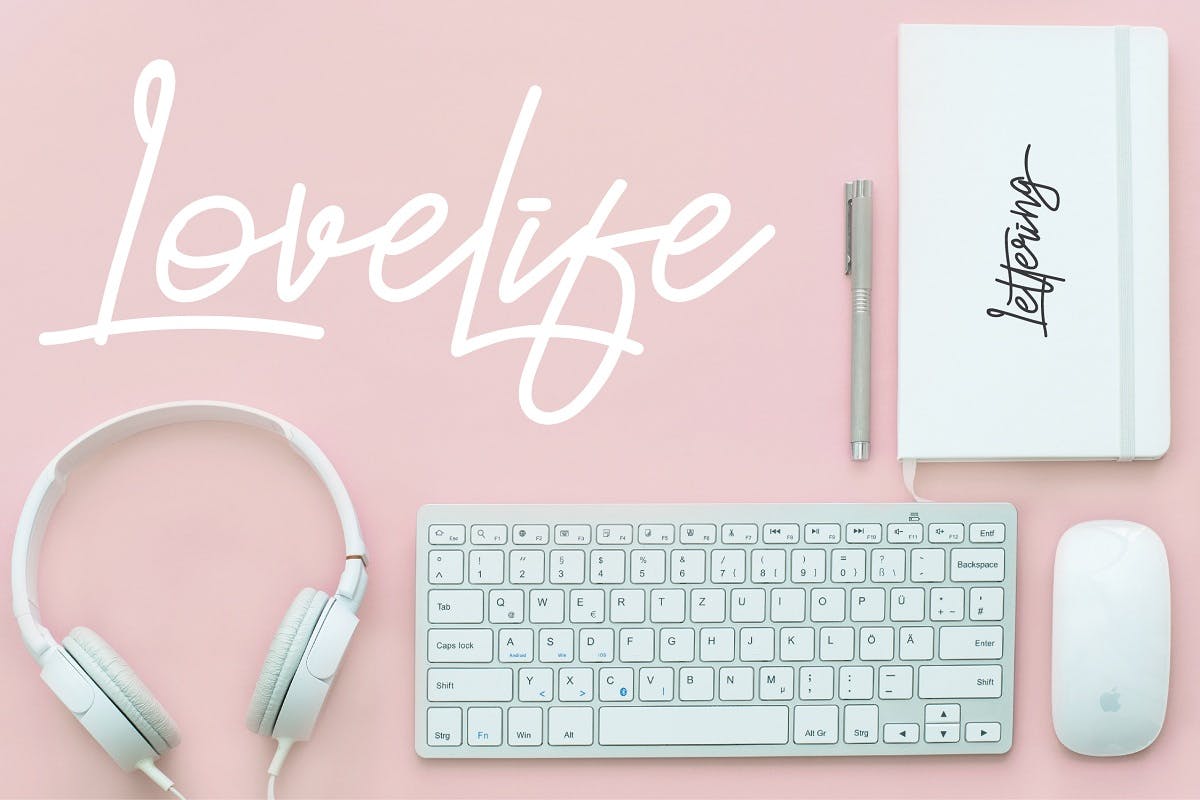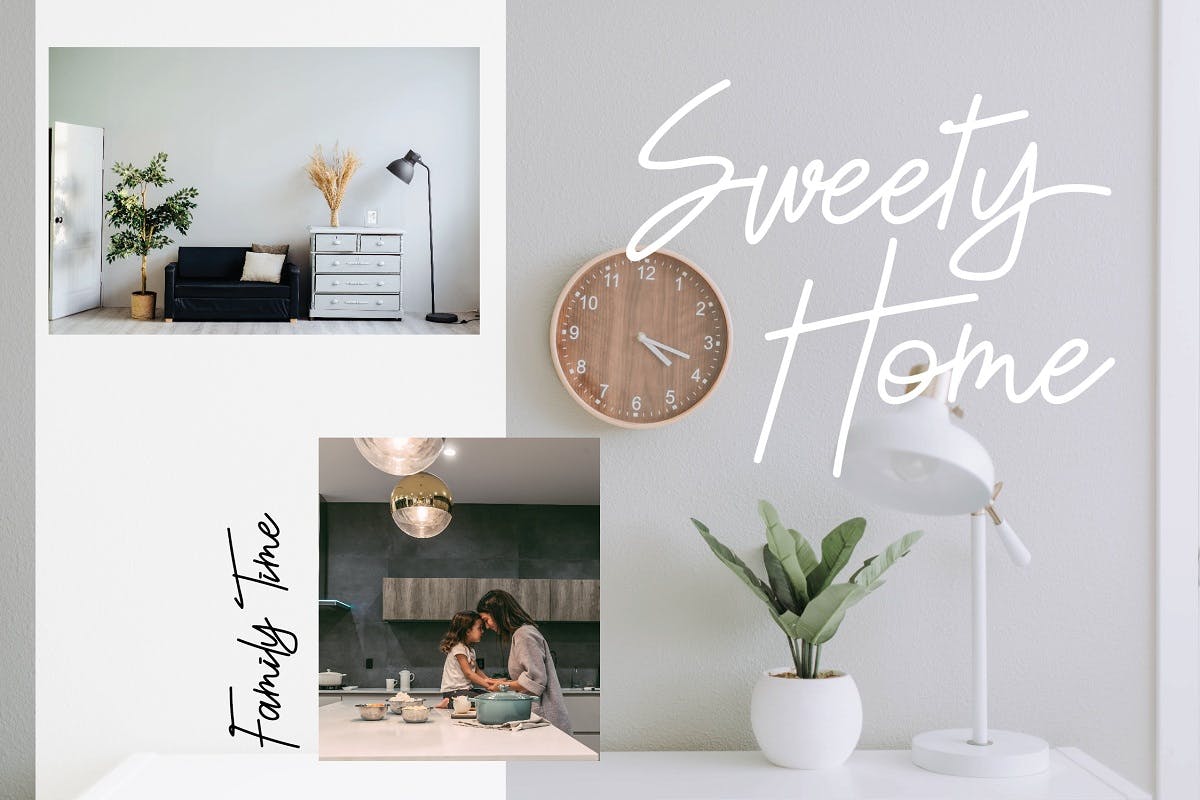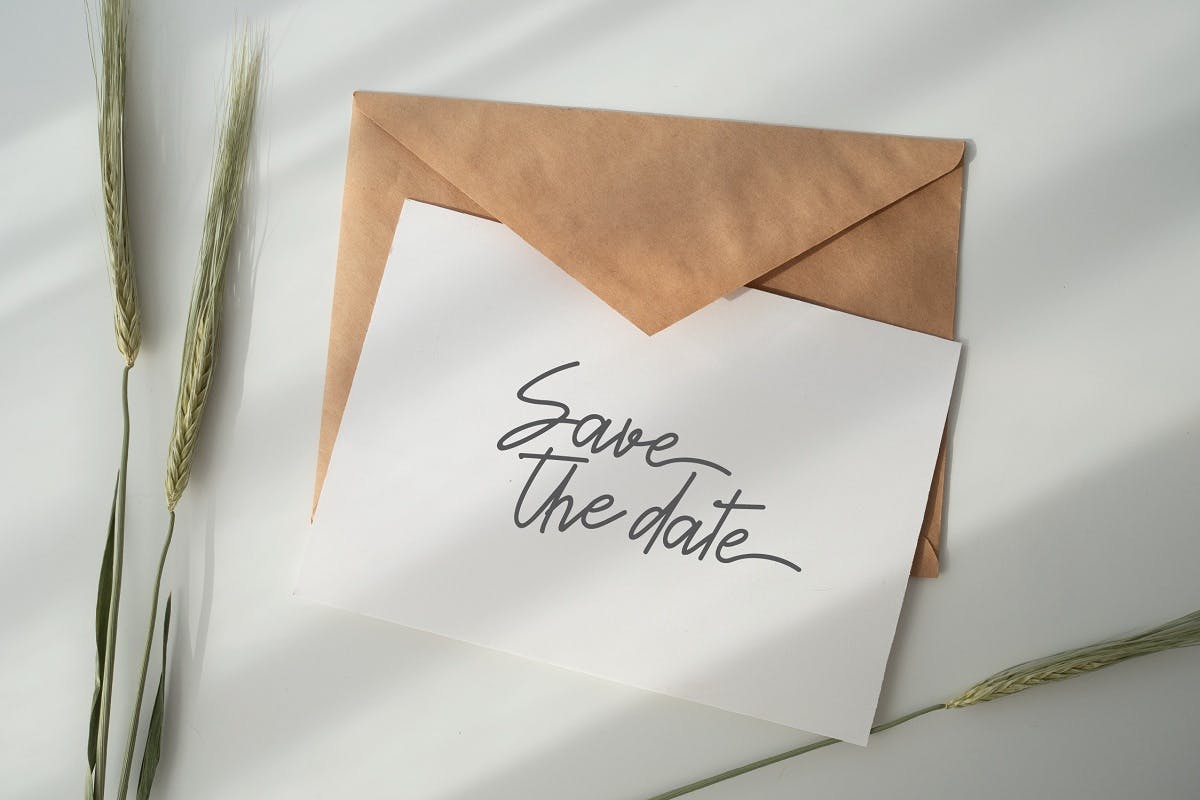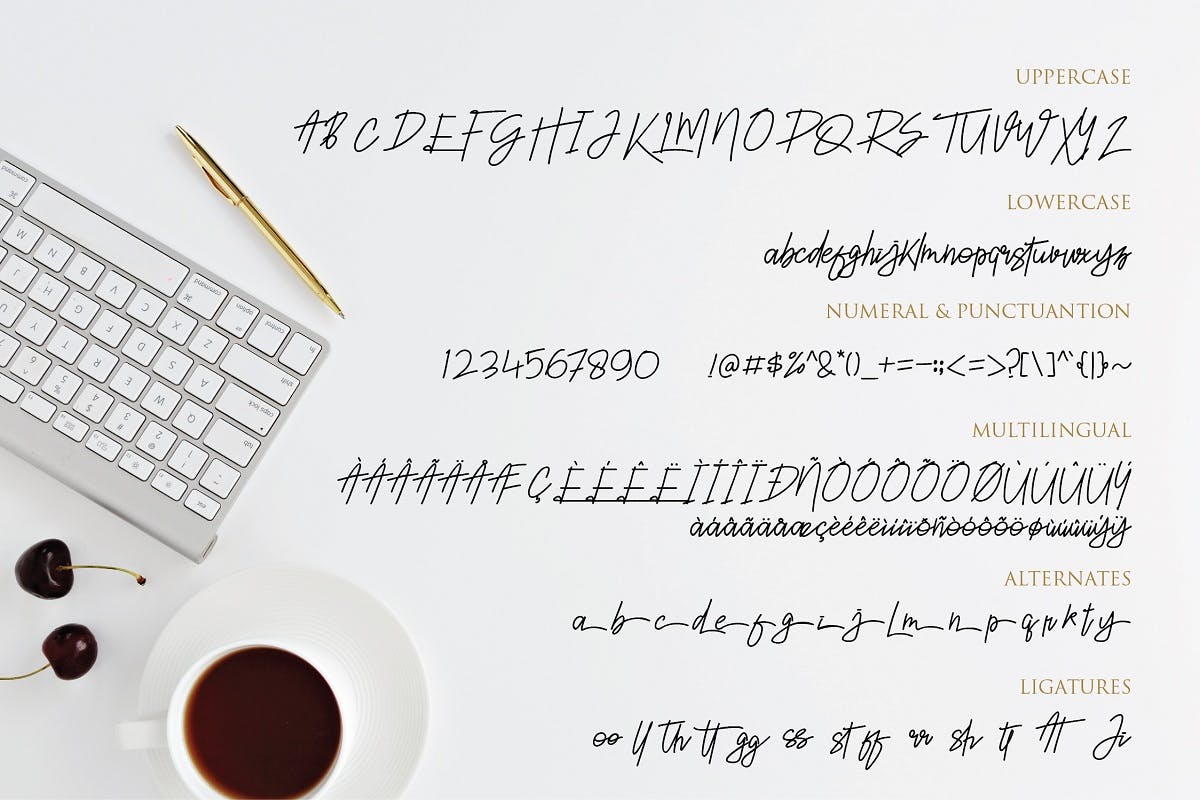
Free Demo Lomesty Script Font
What a beautiful day! Come check our new freebie for this morning, it is Free Demo Lomesty Script Font. This font is very good for you to use on your projects. It will help you to give a more professional look, this font is suitable for works such as business cards, flyers and more. Coming with an OTF font, you can easily install it on your devices. Anyways, this demo font is only available for a personal use license, but, if you want to get more features such as commercial license and ligatures. Purchase the premium version.